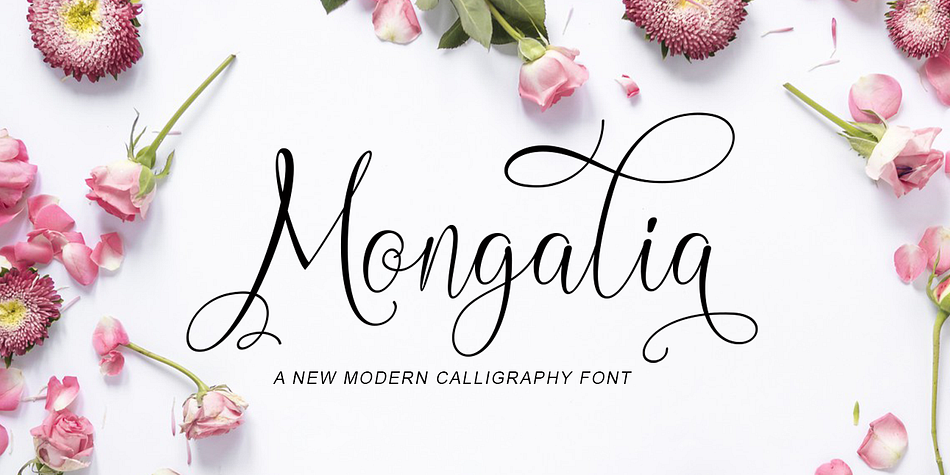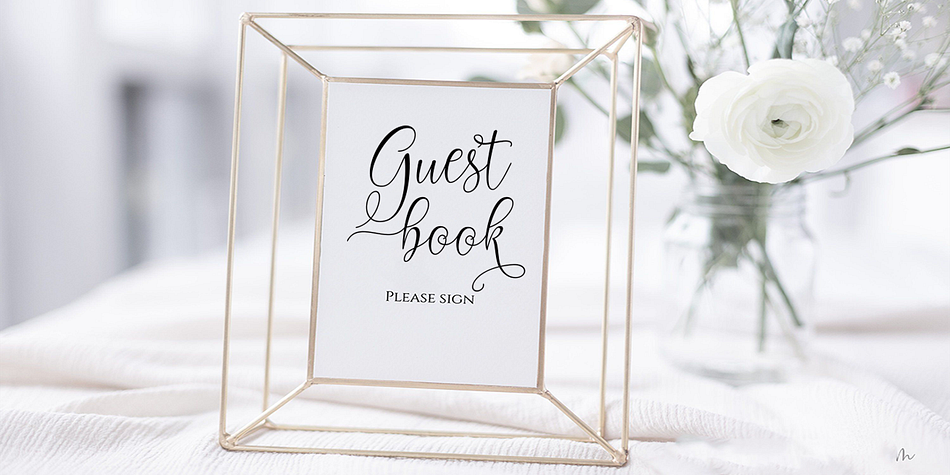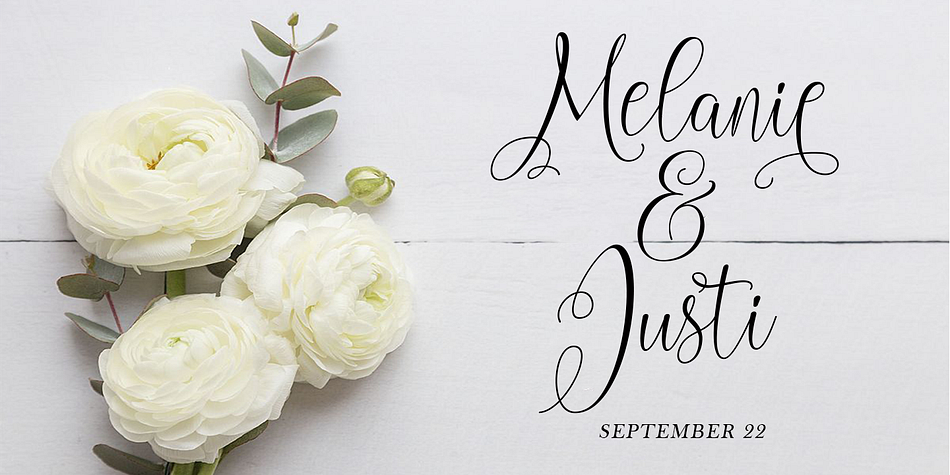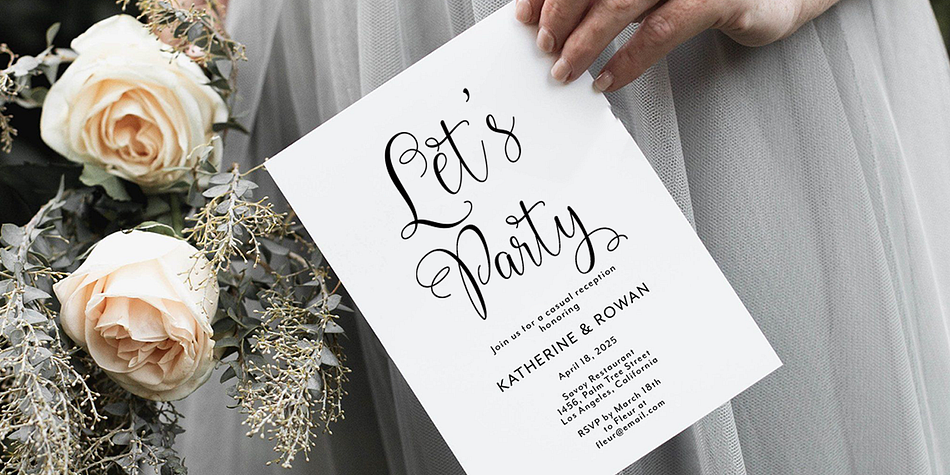
Mongalia
Mongalia is a modern calligraphy font family published by Gatype.
Mongalia is a smooth, elegant and flowing handwritten font. It has a beautifully balanced character, goes well with many designs. Mongalia features varied baselines, smooth lines, beautiful glyphs, and stunning alternatives. Hand-drawn design elements allow you to create many beautiful typographic designs in an instant such as branding, web and editorial designs, prints, crafts, quotes, It’s great for logo types, wedding invitations, romantic cards, labels, packaging, name spelling and other . Add to your most creative ideas and see how they make it happen! Mongalia includes OpenType style alternatives, ligatures, and International support for most Western Languages. To enable the OpenType Stylistic alternative, you need a supporting program such as Adobe Illustrator CS, Adobe Indesign & CorelDraw X6-X7, Microsoft Word 2010 or a later version.